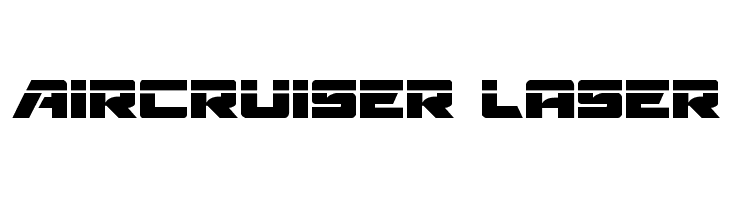
• Aircruiser Gradient
A bold, futuristic font with a gradient effect created by horizontal lines.
• Aircruiser Gradient 3D Italic
A bold, 3D gradient italic font with a futuristic and dynamic style.
• Aircruiser Gradient 3D Regular
A bold, 3D gradient font with a futuristic and dynamic style.
• Aircruiser Gradient Italic
A bold, futuristic italic font with a gradient effect and dynamic design.
• Aircruiser Italic
A bold, italic font with a futuristic and dynamic style.
• Aircruiser Laser
A bold, futuristic font with sharp, angular edges and a geometric design.
• Aircruiser Laser Italic
A bold, italic, futuristic font with sharp, angular edges.
• Aircruiser Leftalic
A bold, angular, and futuristic font with a dynamic slant.
• Aircruiser Light
A bold, geometric font with a futuristic and industrial style.
• Aircruiser Light Italic
A bold, italicized font with a futuristic and dynamic design.